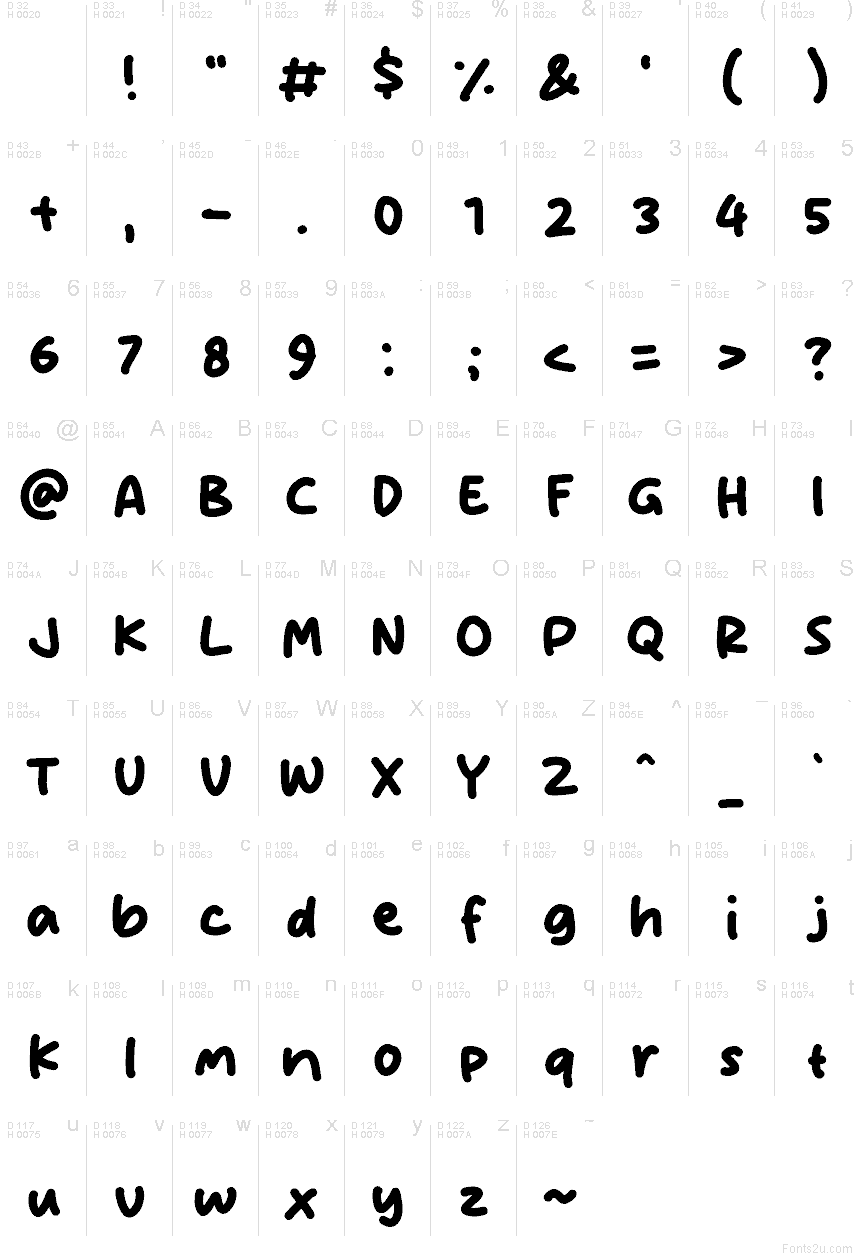
Violet Dream
Violet Dream font by Origin Type is a free handwritten typeface with a chunky, inky softness that feels like it was painted with a thick marker. Each letter is rounded and slightly bouncy, giving words a cozy, approachable energy that’s easy to read at a glance. It has that “kids’ book cover meets doodled notebook” charm, making text feel friendly, informal, and full of character.
Using Violet Dream, your designs instantly lean cute and playful, so it works beautifully for children’s branding, classroom materials, birthday invitations, stickers, YouTube thumbnails, and social media graphics. This free font really comes alive at larger sizes, where its bold shapes can breathe; pair it with a clean sans serif for small details and supporting text.